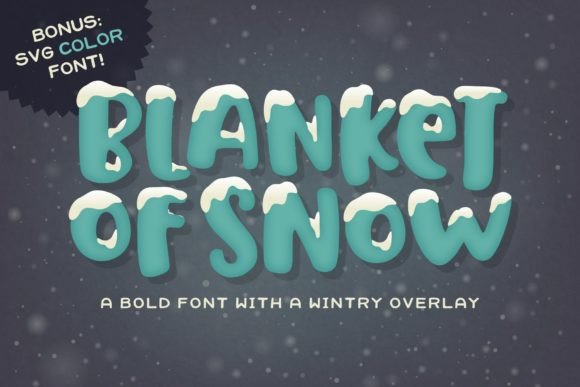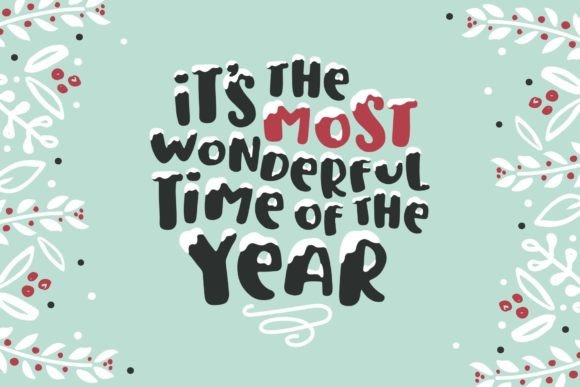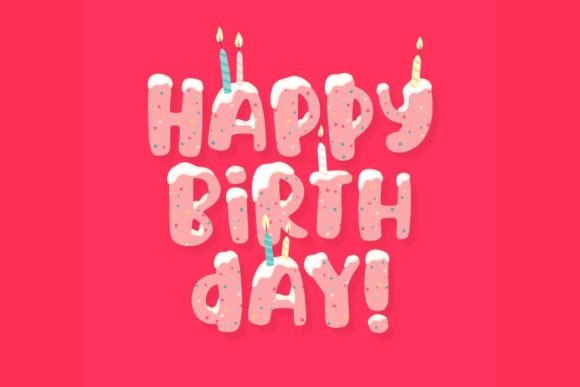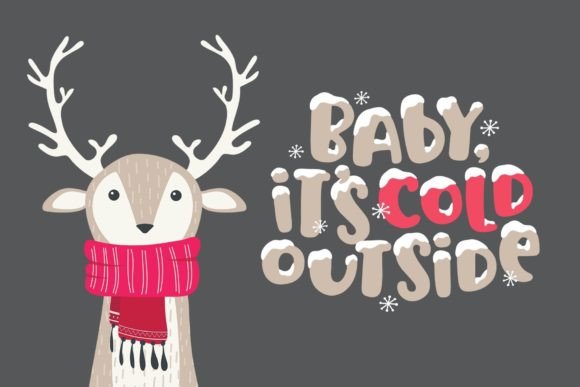
Blanket of Snow Font
About the Blanket of Snow Font
Meet Blanket of Snow Font, a stunning font that brings a touch of elegance and professionalism to any design. Blanket of Snow is a wide, bold font packed with personality. It can be used alone, or with the overlay version placed on top for a snow-capped effect. Add it confidently to your projects, and you will love the results.
Blanket of Snow’s bold, wide forms excel in headlines, short impactful statements, and branding applications where a strong visual presence is desired. It’s ideal for posters, logos, and packaging design, particularly for products conveying a sense of wintery charm or luxurious comfort. Avoid using it for body text or long paragraphs; its weight and width make extended reading difficult.
The font’s inherent boldness pairs well with clean, crisp sans-serif fonts like Open Sans or Lato for a balanced contrast. For a more playful feel, consider pairing it with a rounded geometric sans-serif such as Nunito. Alternatively, a delicate script font can add a touch of elegance, softening the overall impact.
Blanket of Snow projects a bold yet friendly personality, conveying a sense of warmth and approachability despite its substantial weight. Its versatility allows it to suit a range of projects, from winter-themed promotions to upscale product branding.
Blanket of Snow Font Usage Examples
Blanket of Snow Font Example